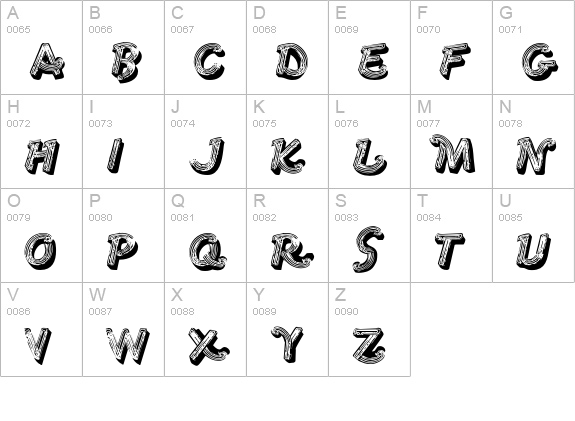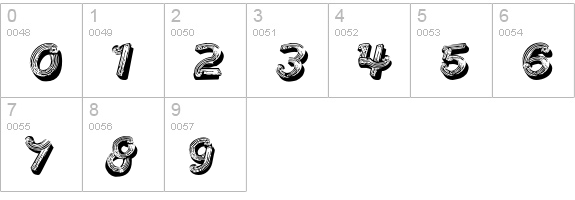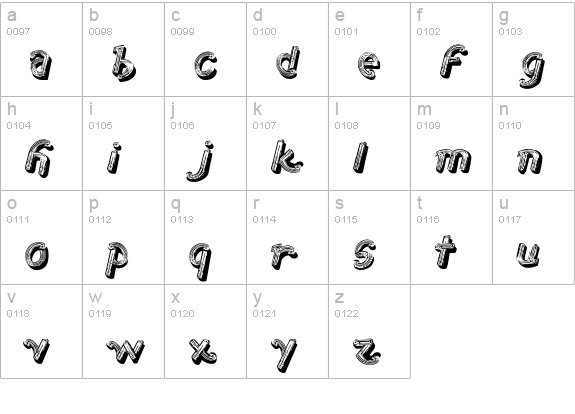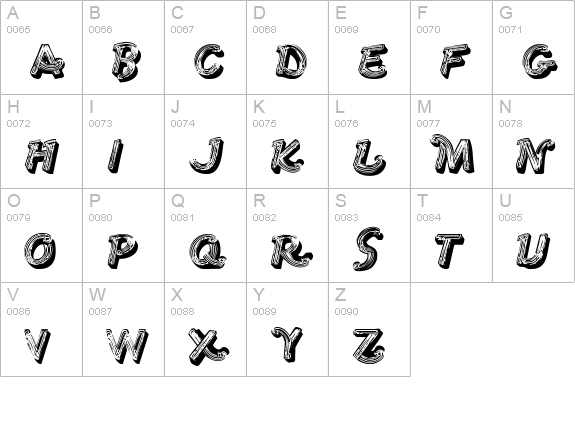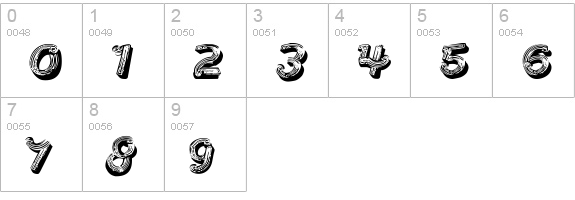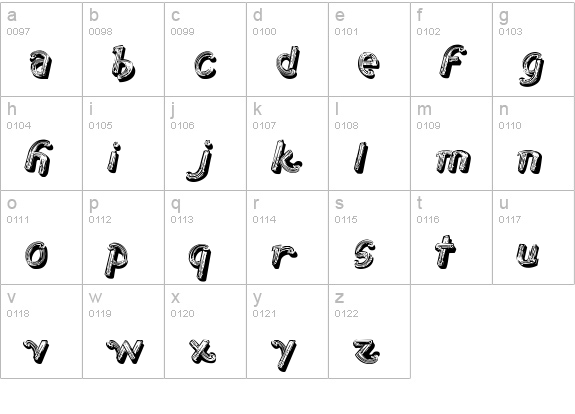
1stAve-regular Font Details
1stAve-regular is the standard, neutral variant in the 1stAve typeface family \xE2\x80\x94 well suited to general body text, paragraphs, and standard typographic work.